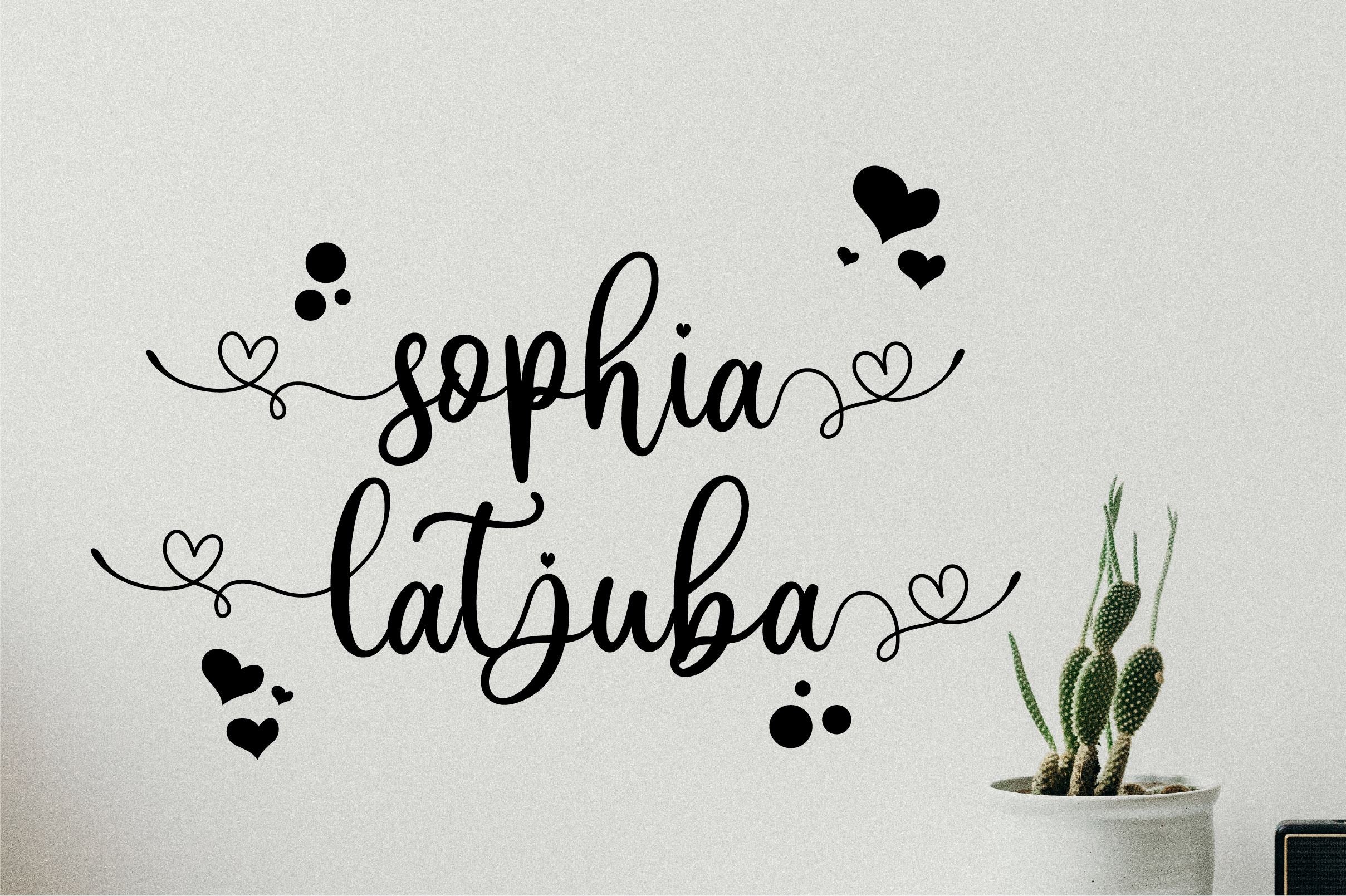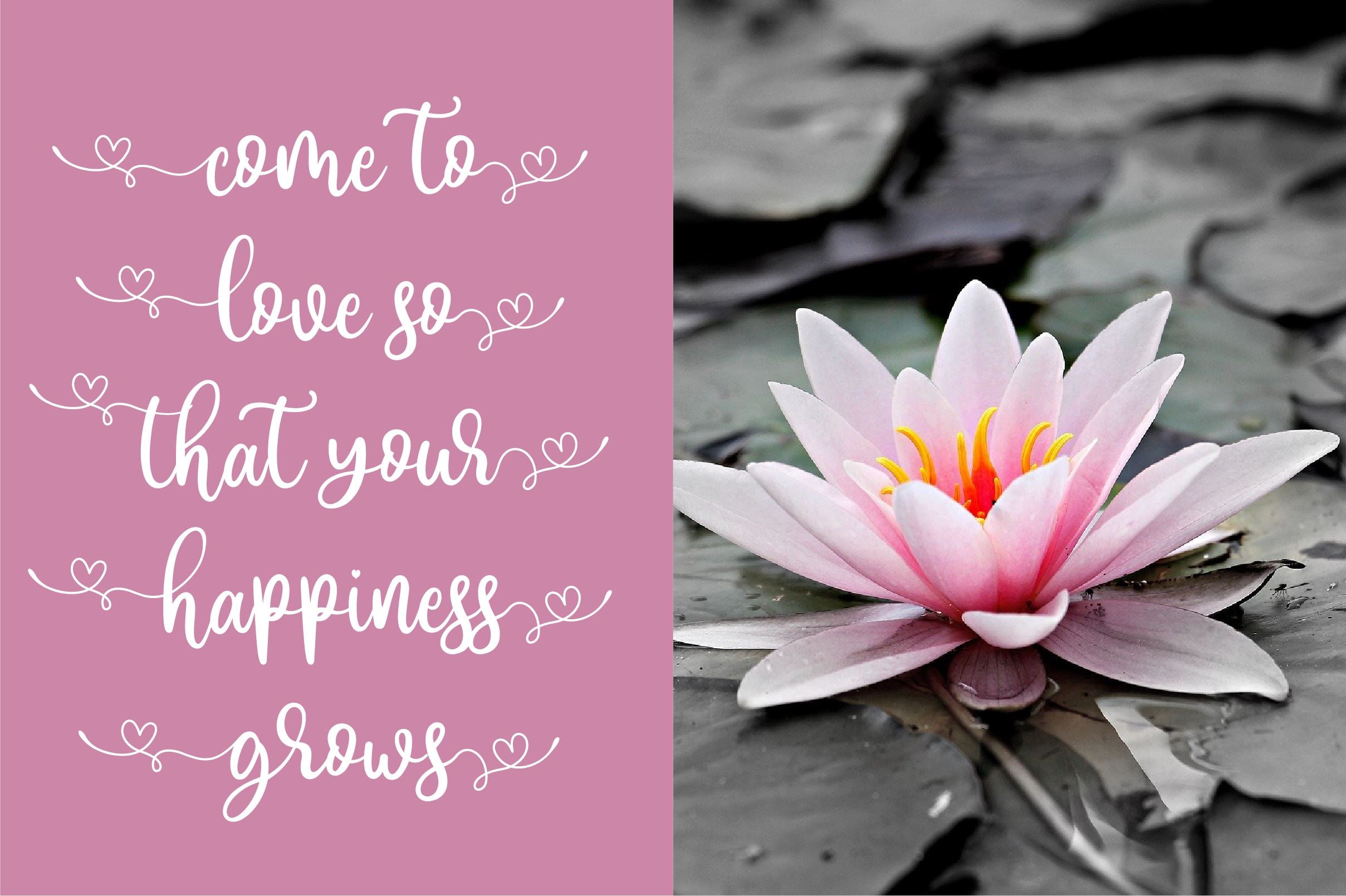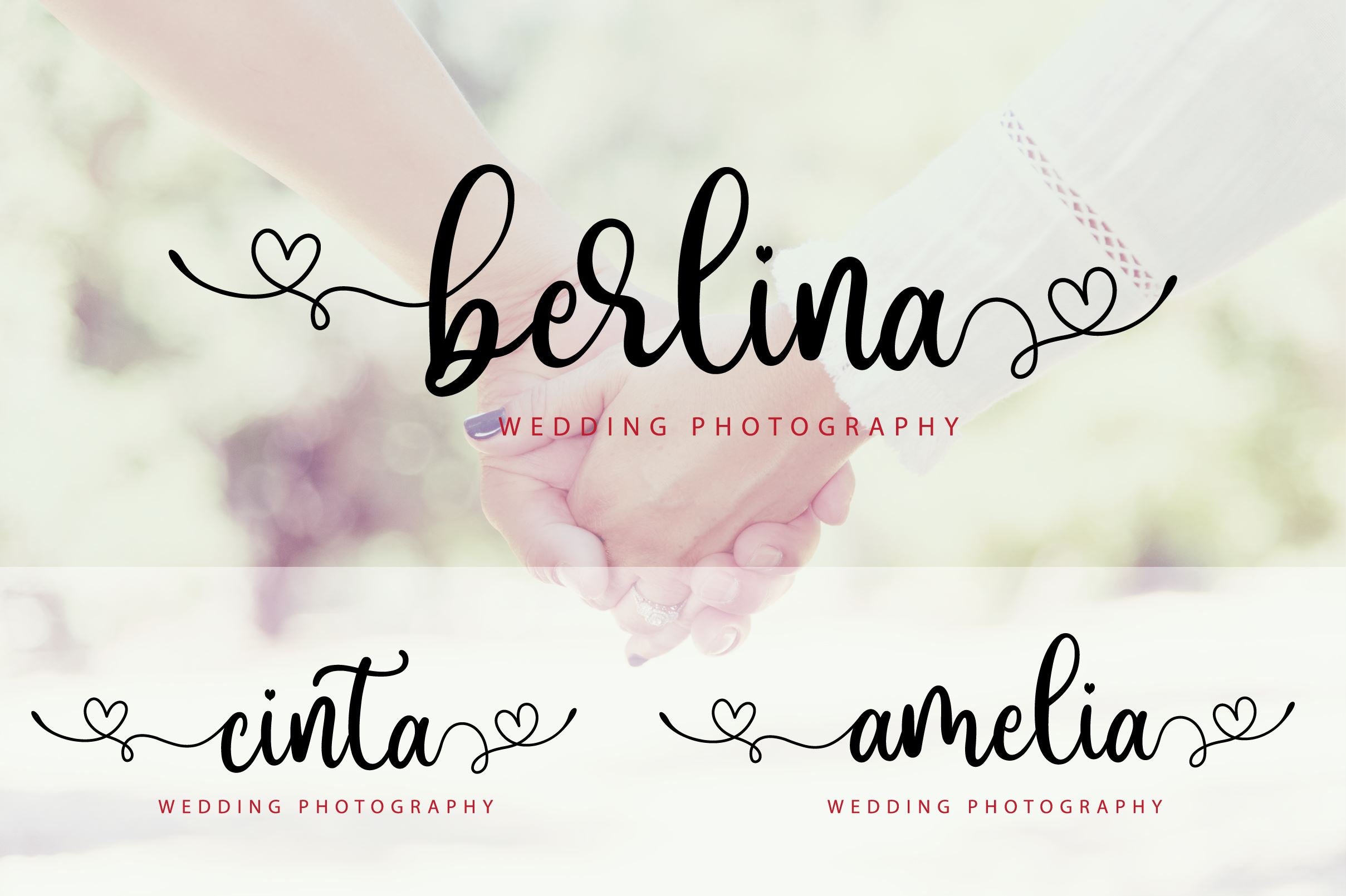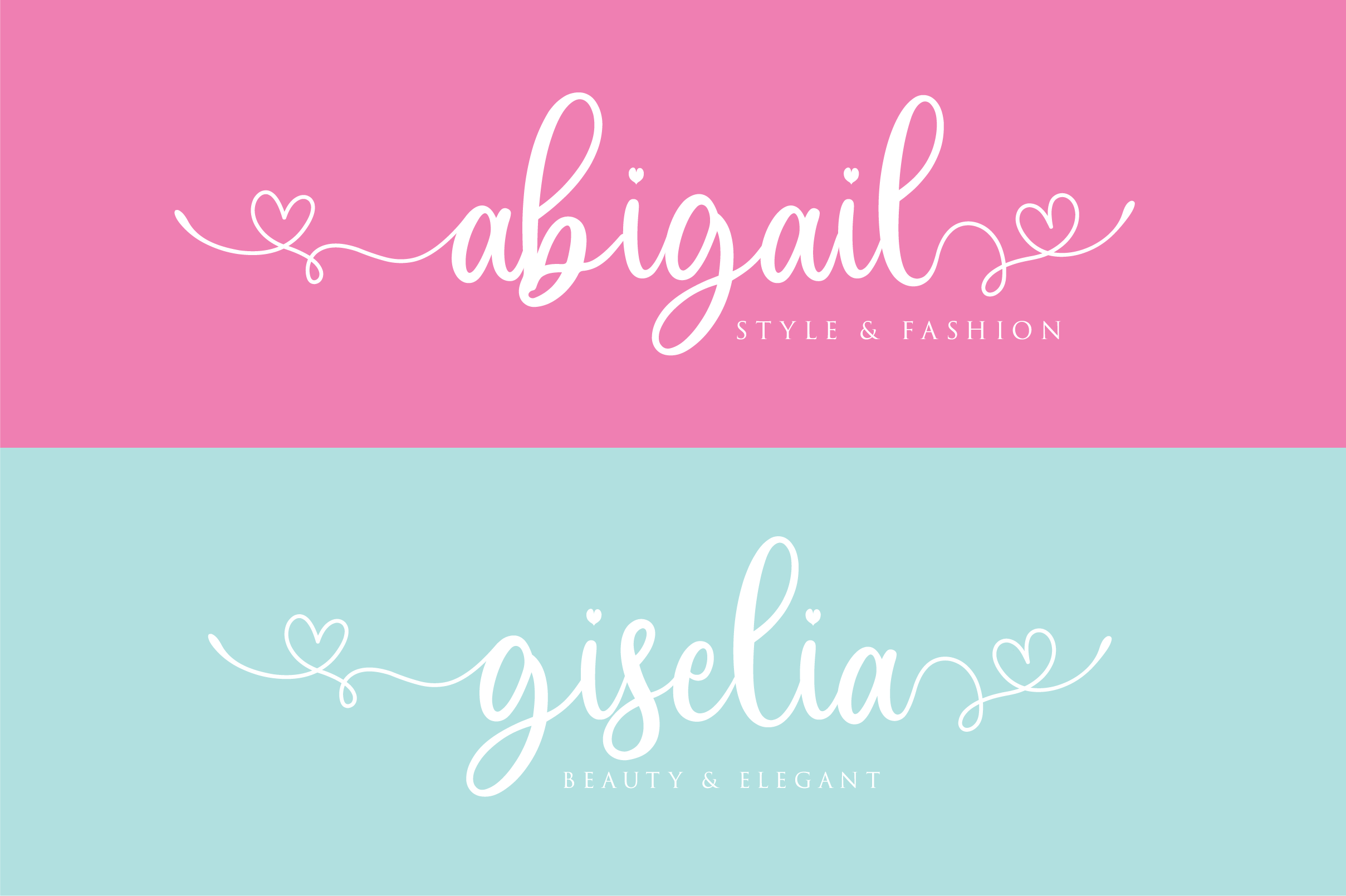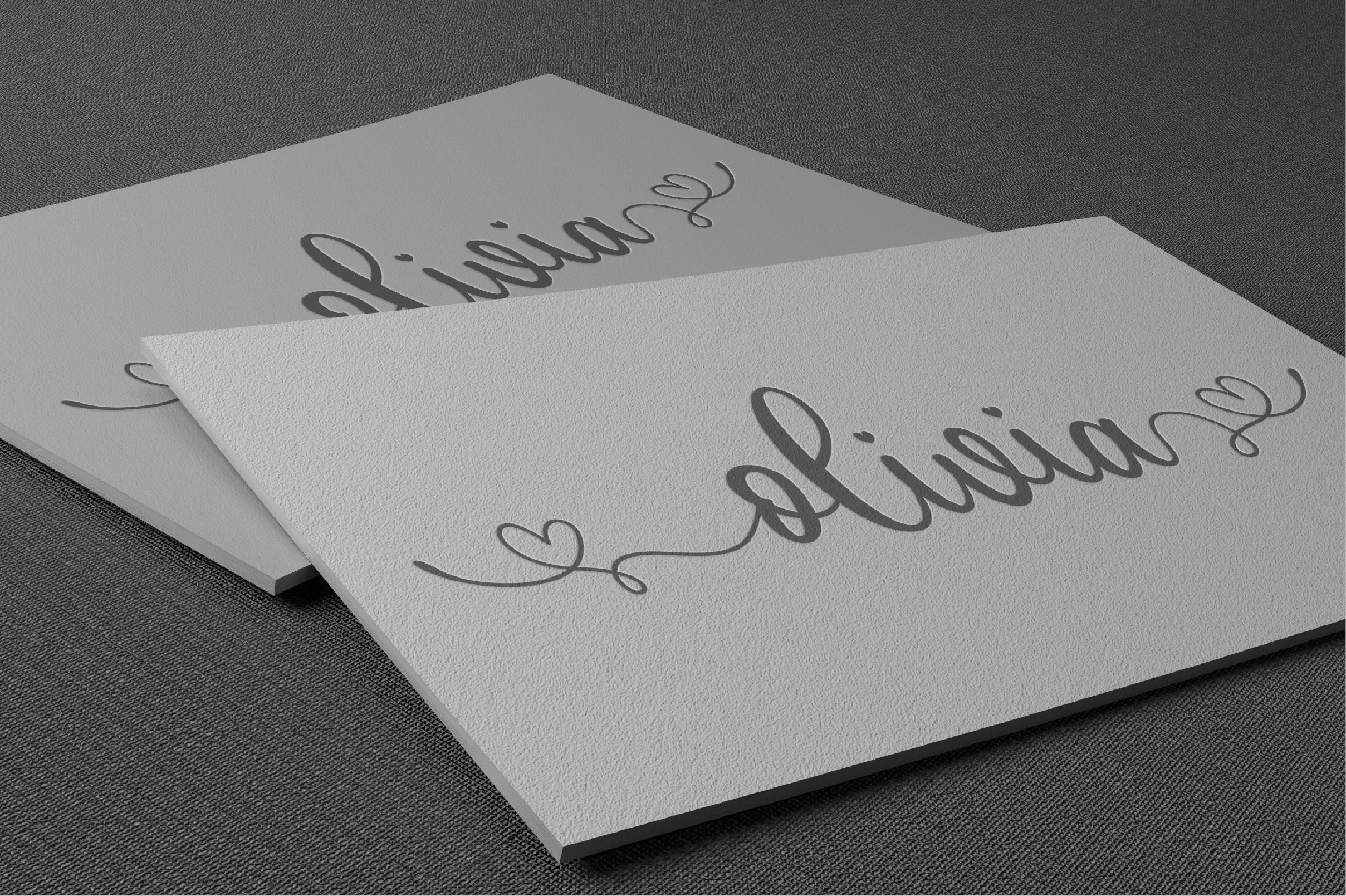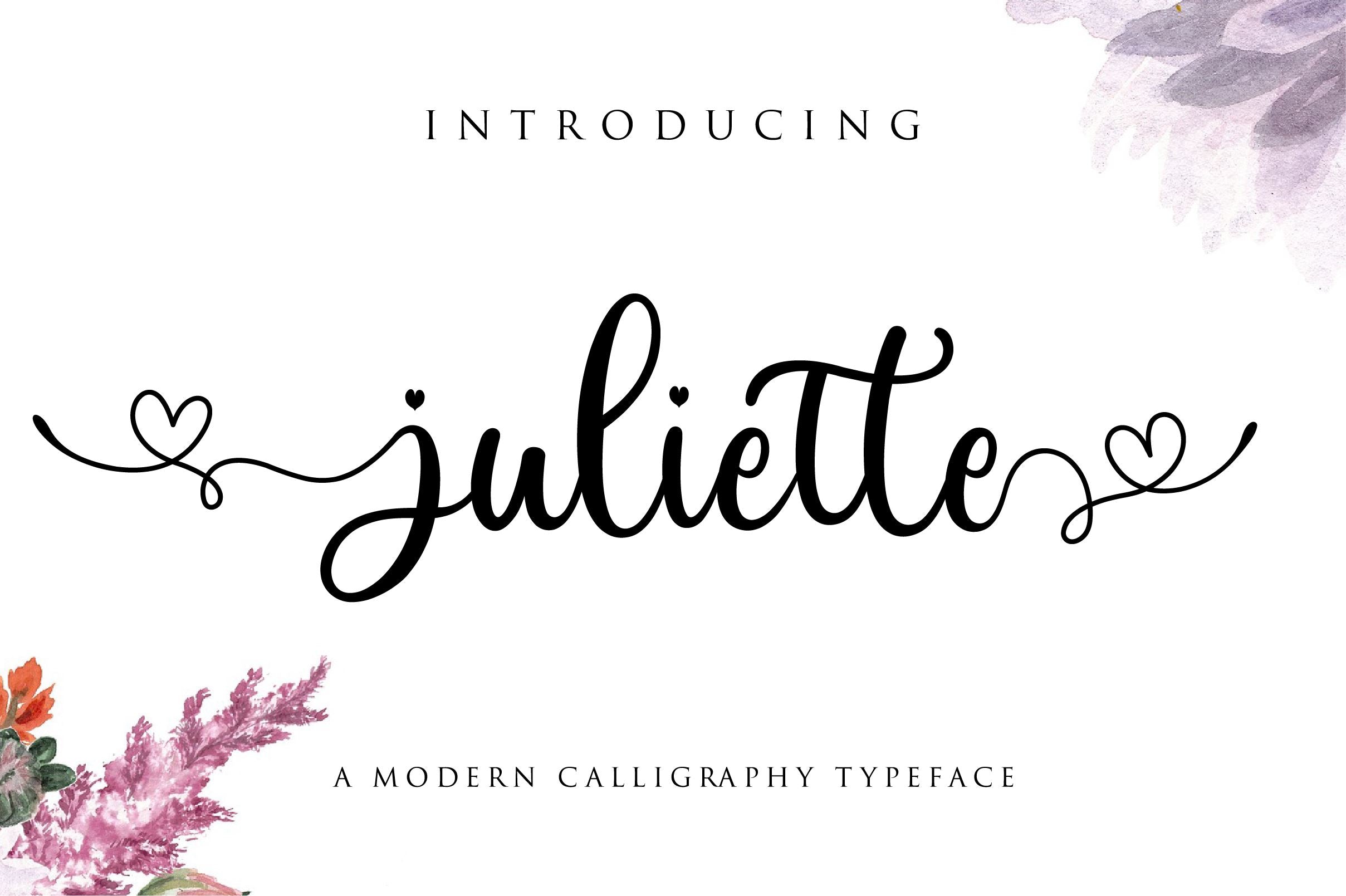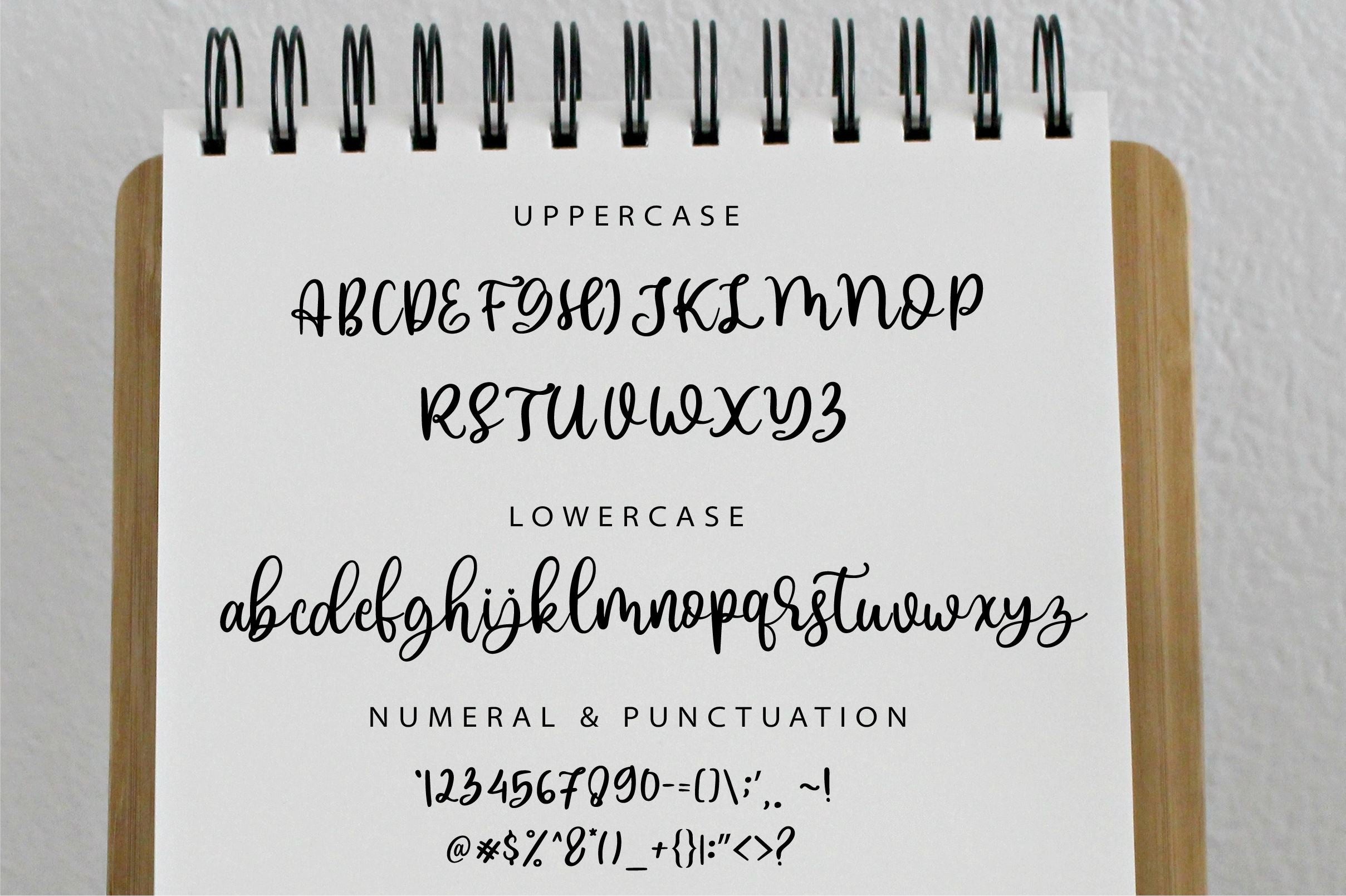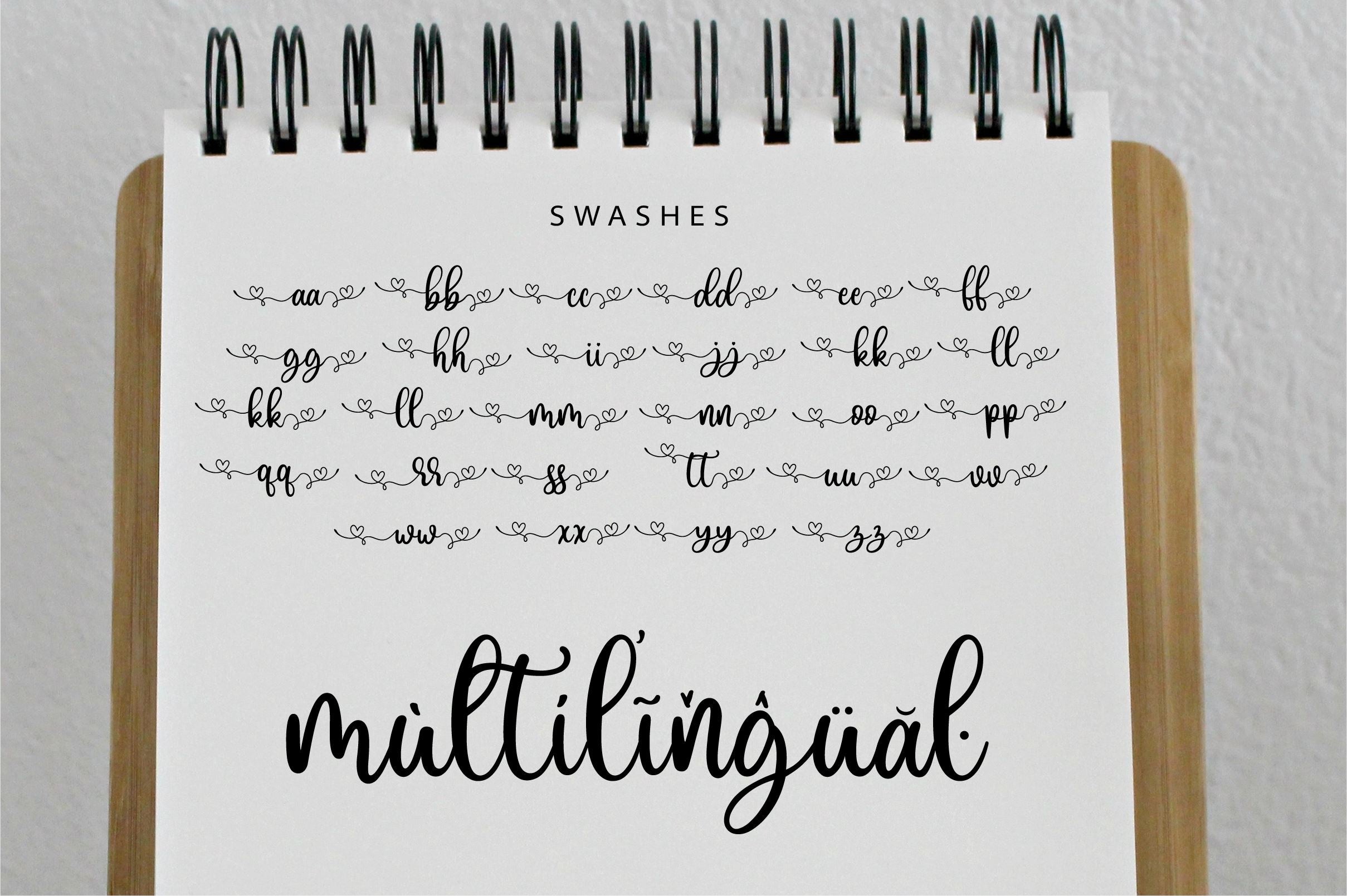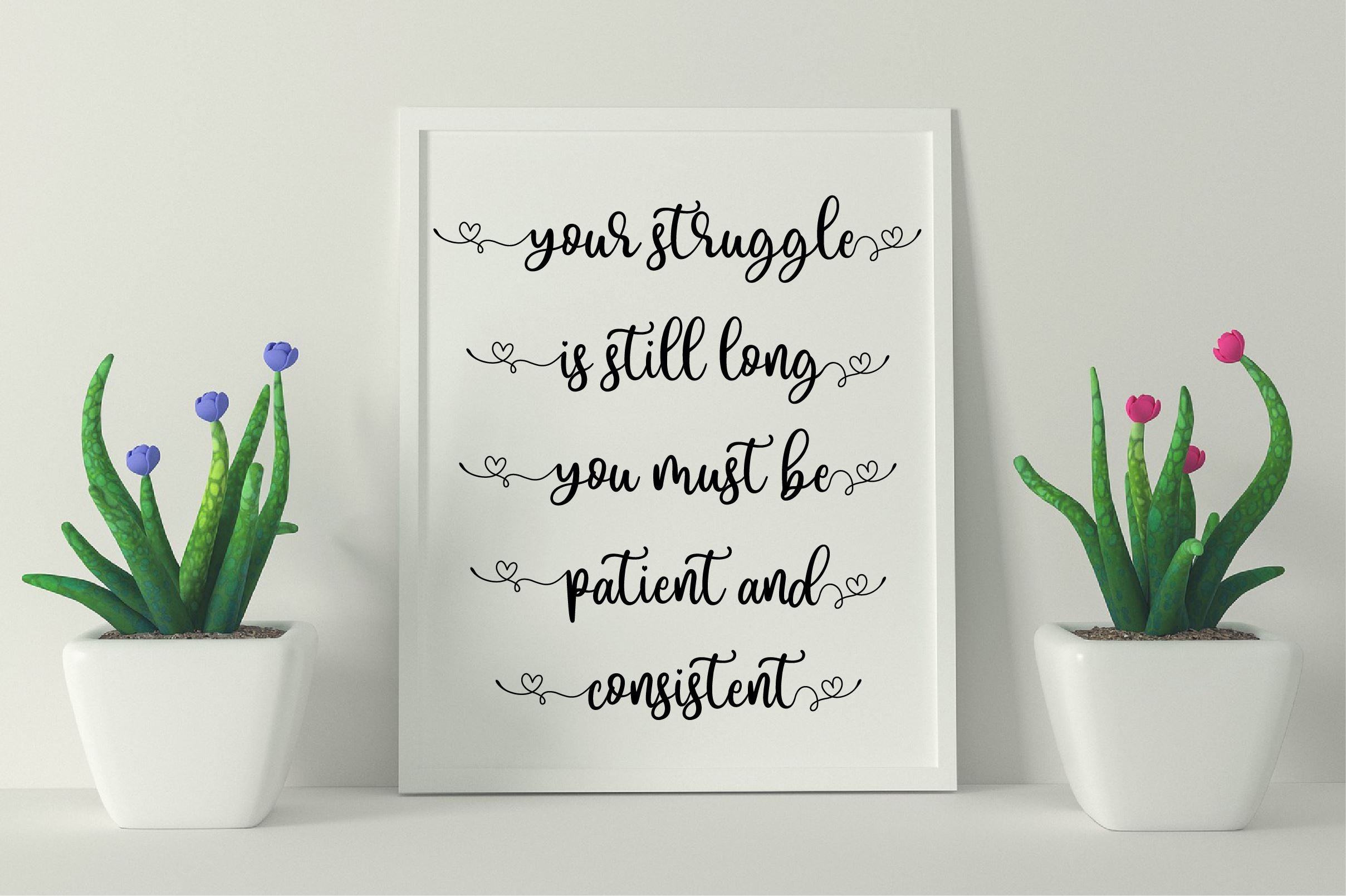
juliette script
About juliette script
introducing juliette script, a stylish Font Style. This beautiful script font offers your personal touch to your latest art project with elegant, classy and modern look. The juliette Script offers gorgeous typographic perfect for many different projects such as logos & branding, invitations, stationery, wedding designs, social media posts, advertisements, product packaging, product designs, labels, photography, watermarks, special events or anything that needs handwriting taste. What’s Included: juliette OTF juliette TTF Numeral and punctuation Ligatures 52 Swashes International Language Works on PC & Mac Simple installations Accessible in Adobe Illustrator, Adobe Photoshop, Adobe InDesign, even works on Microsoft Word. Thank you for your purchase! Hope you enjoy with our font! Best Regards, FanaStudio